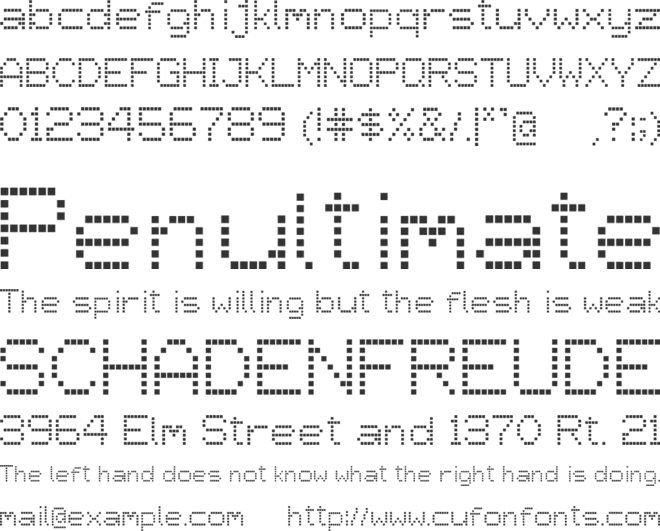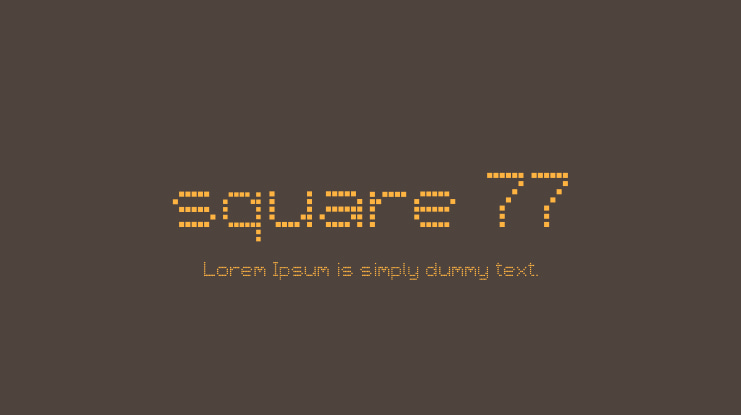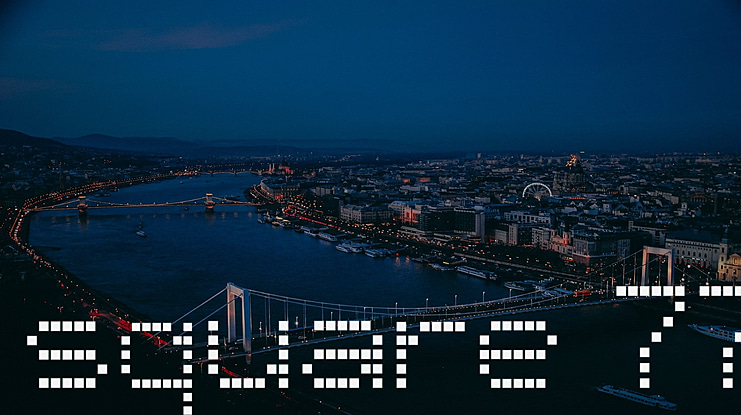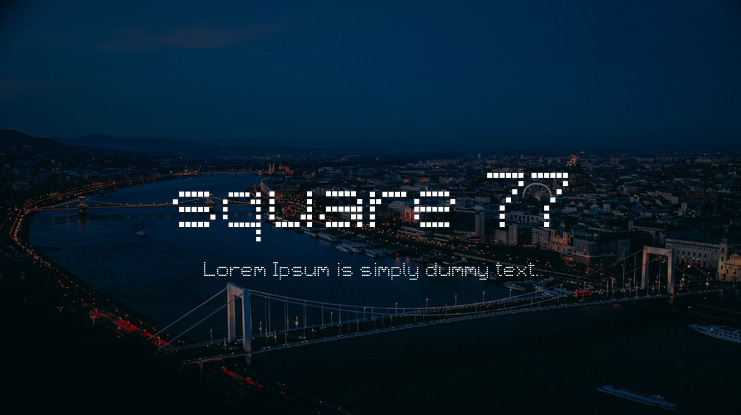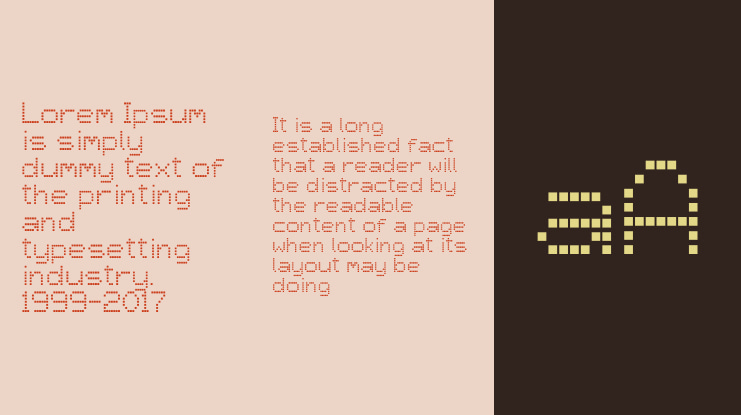
square 77 Font
This is a techno font that build with symetric style seven by seven squares. This font was inspired by the dot matrix font techno genre. The shape was built to keep the simplicity. This is a good font to use on any simple and clear design. There are no corner with lower or more than 90 degree. There are no arc of a circle.